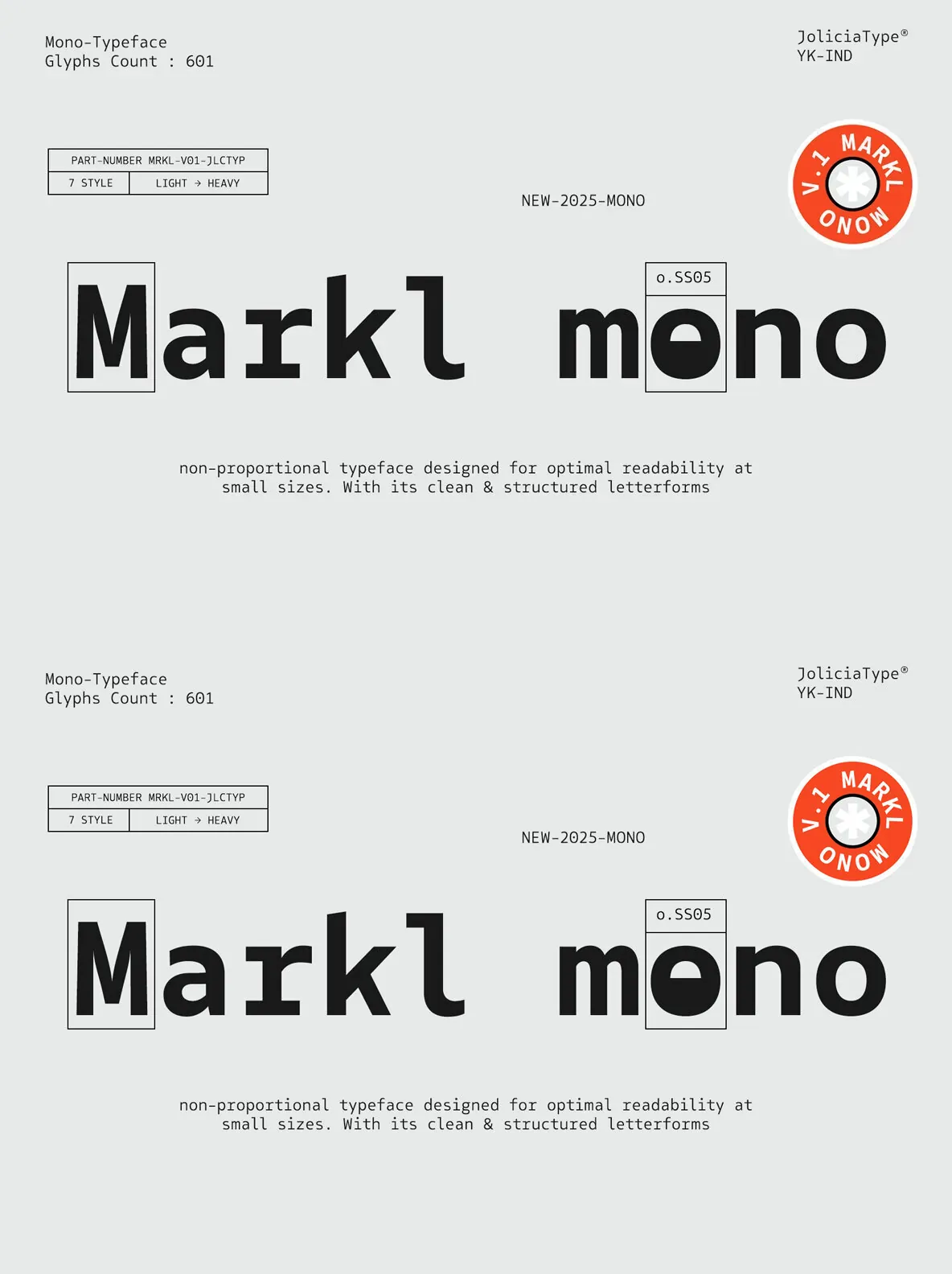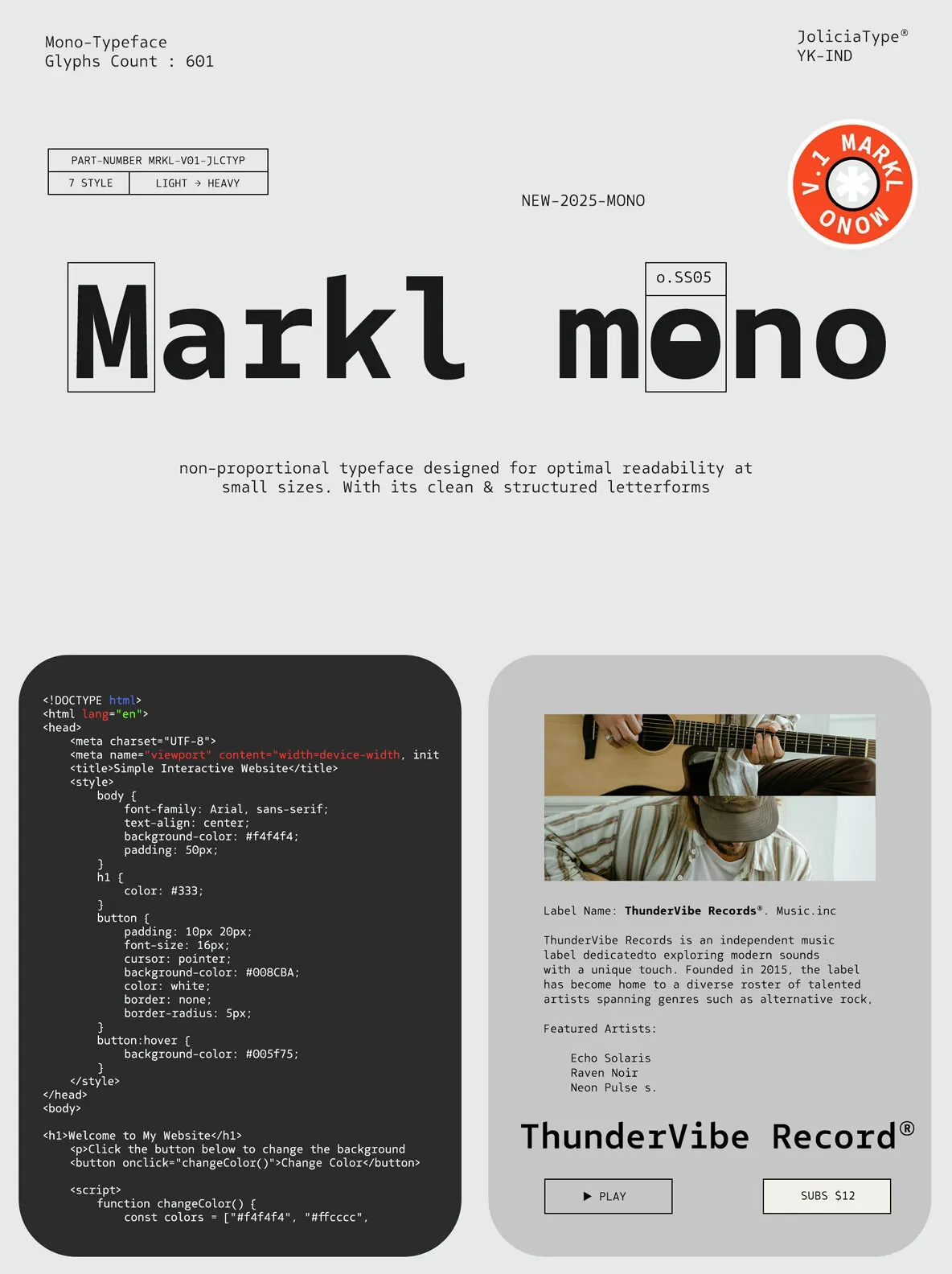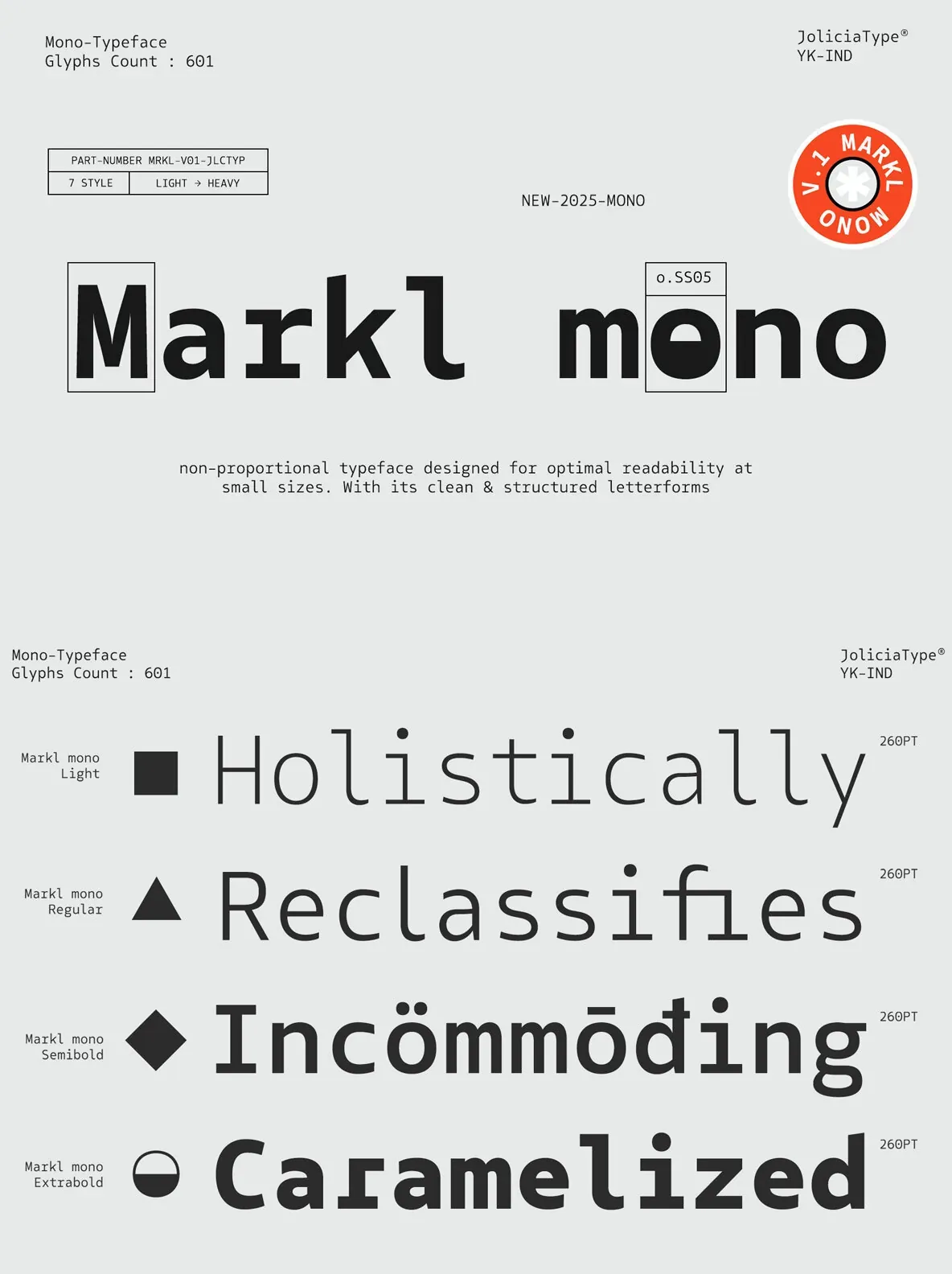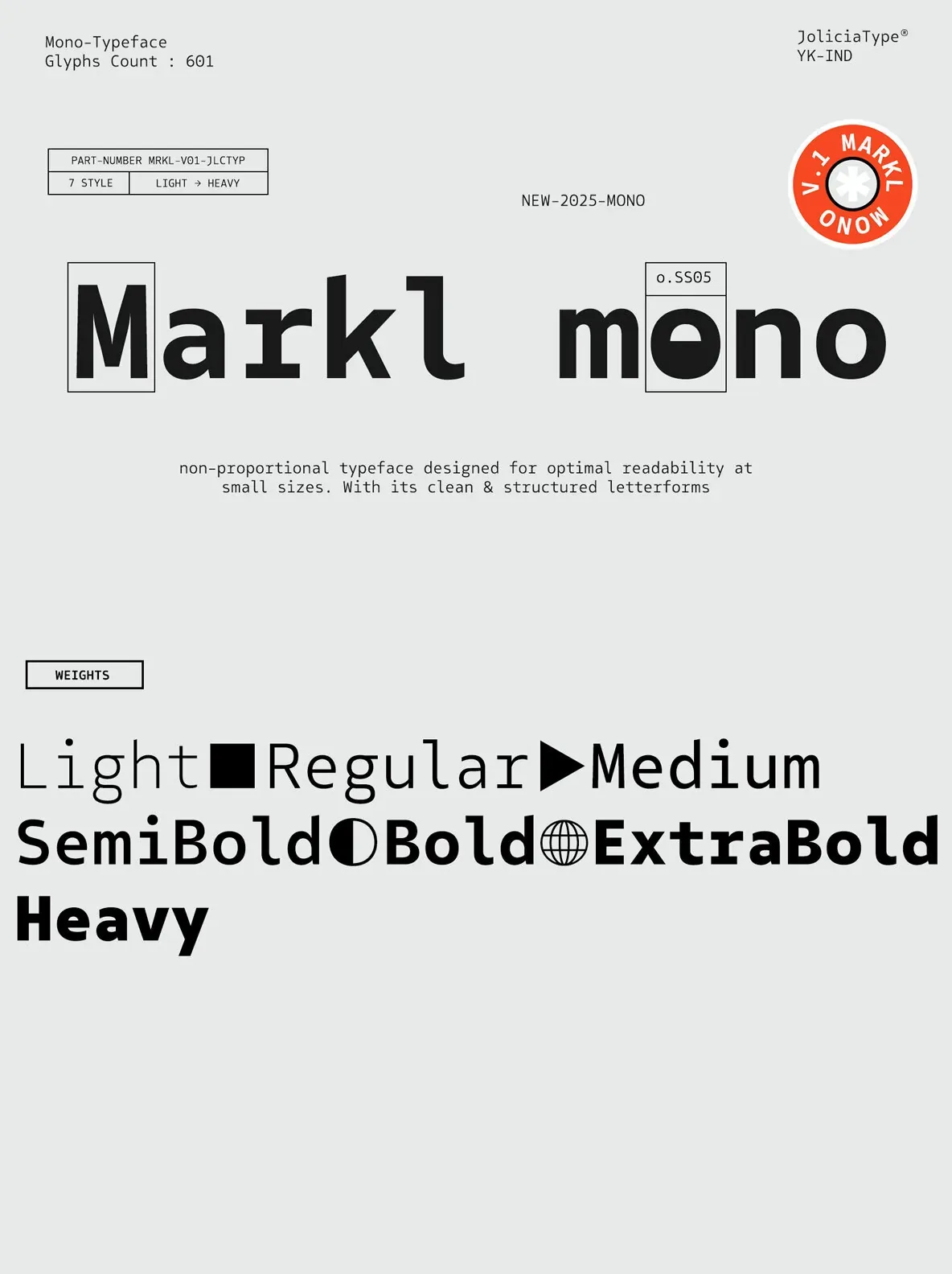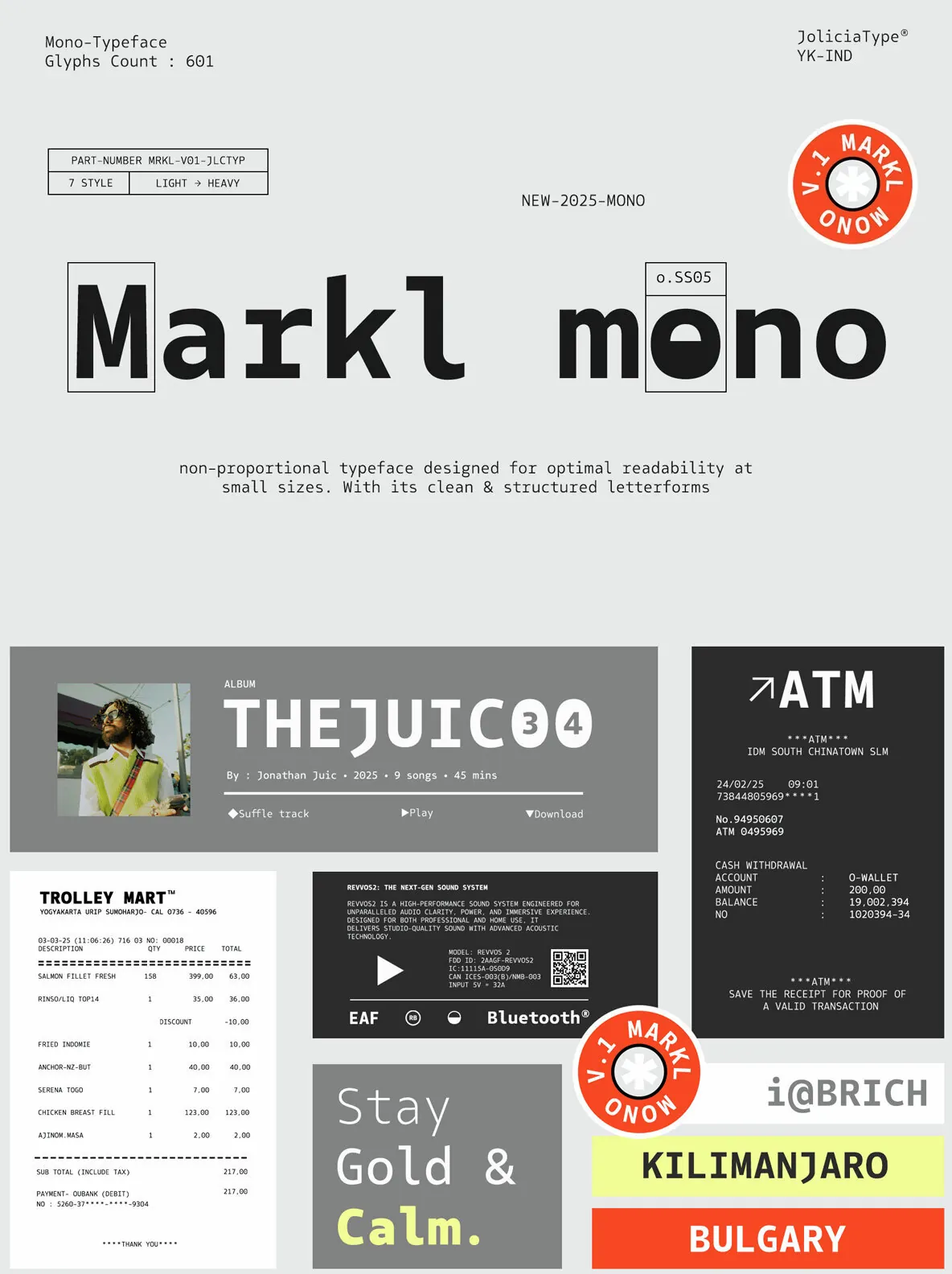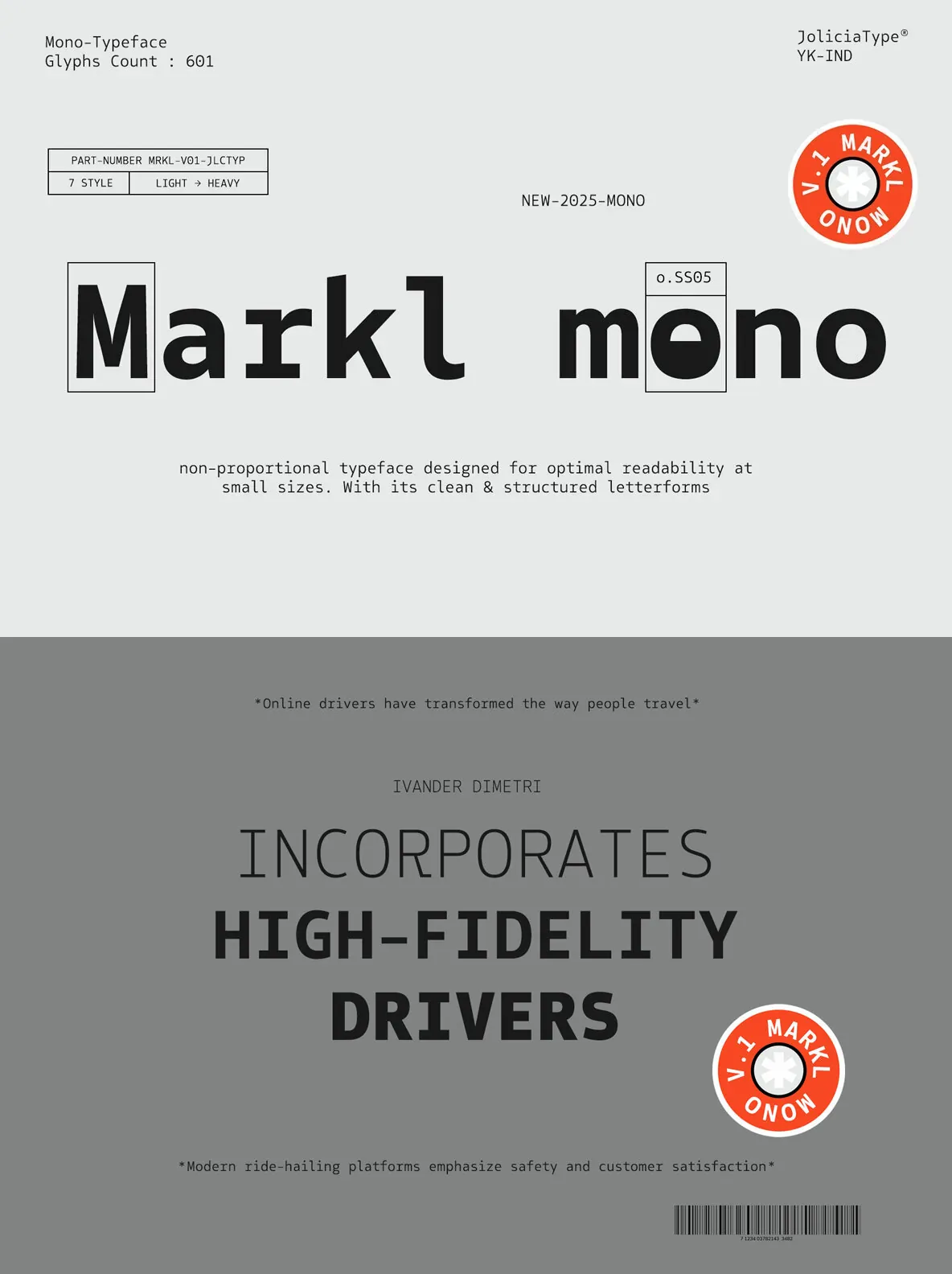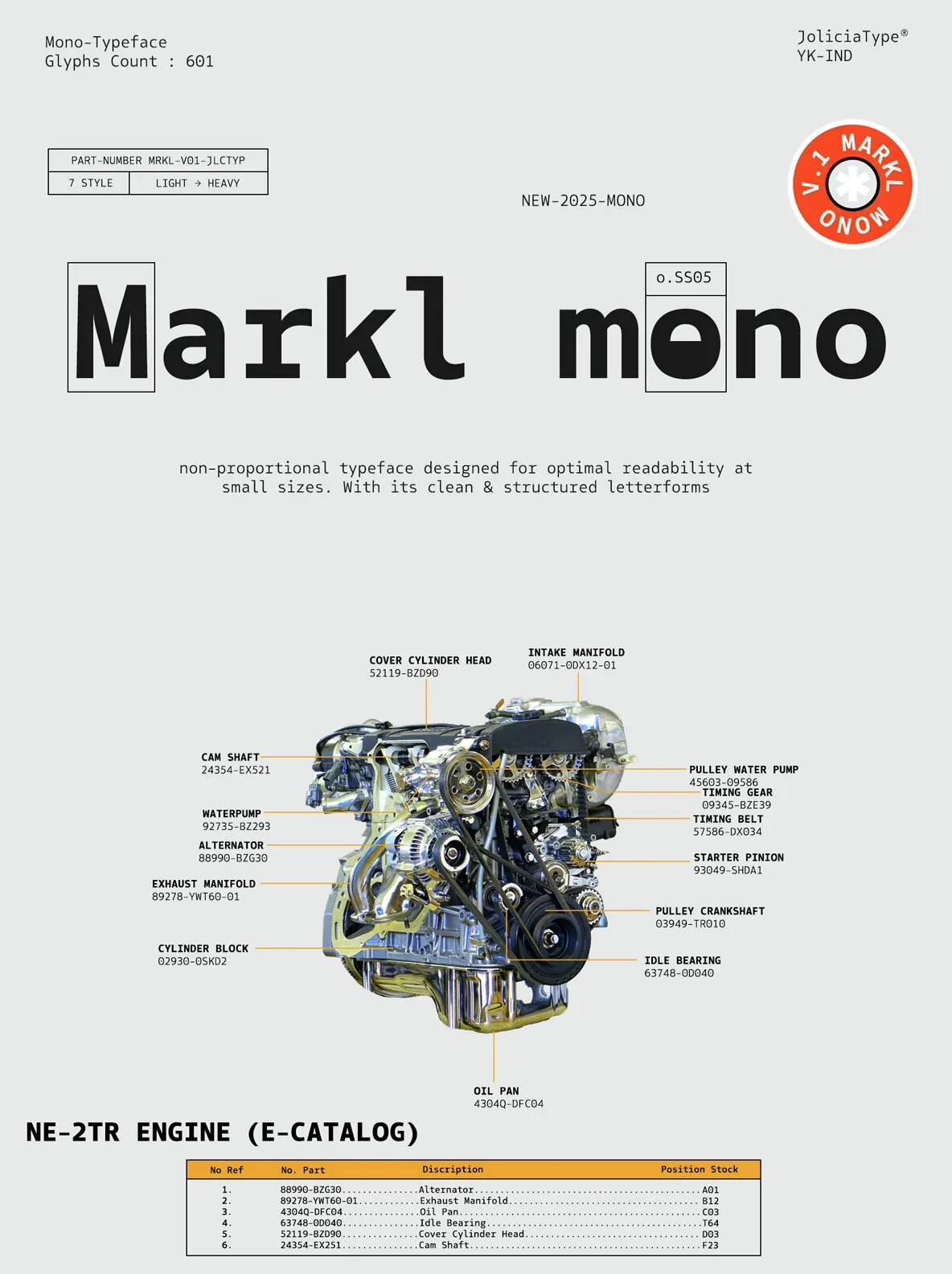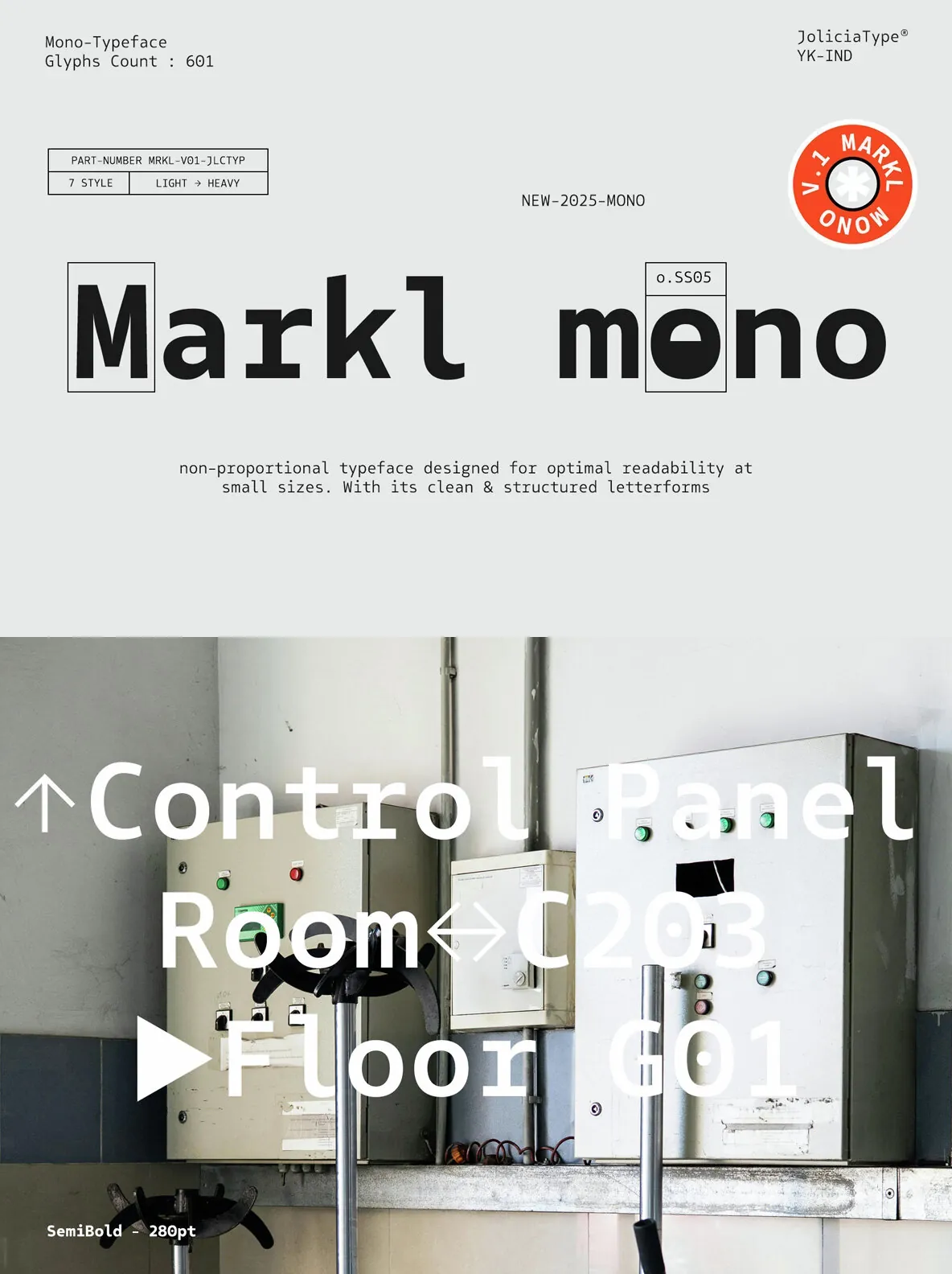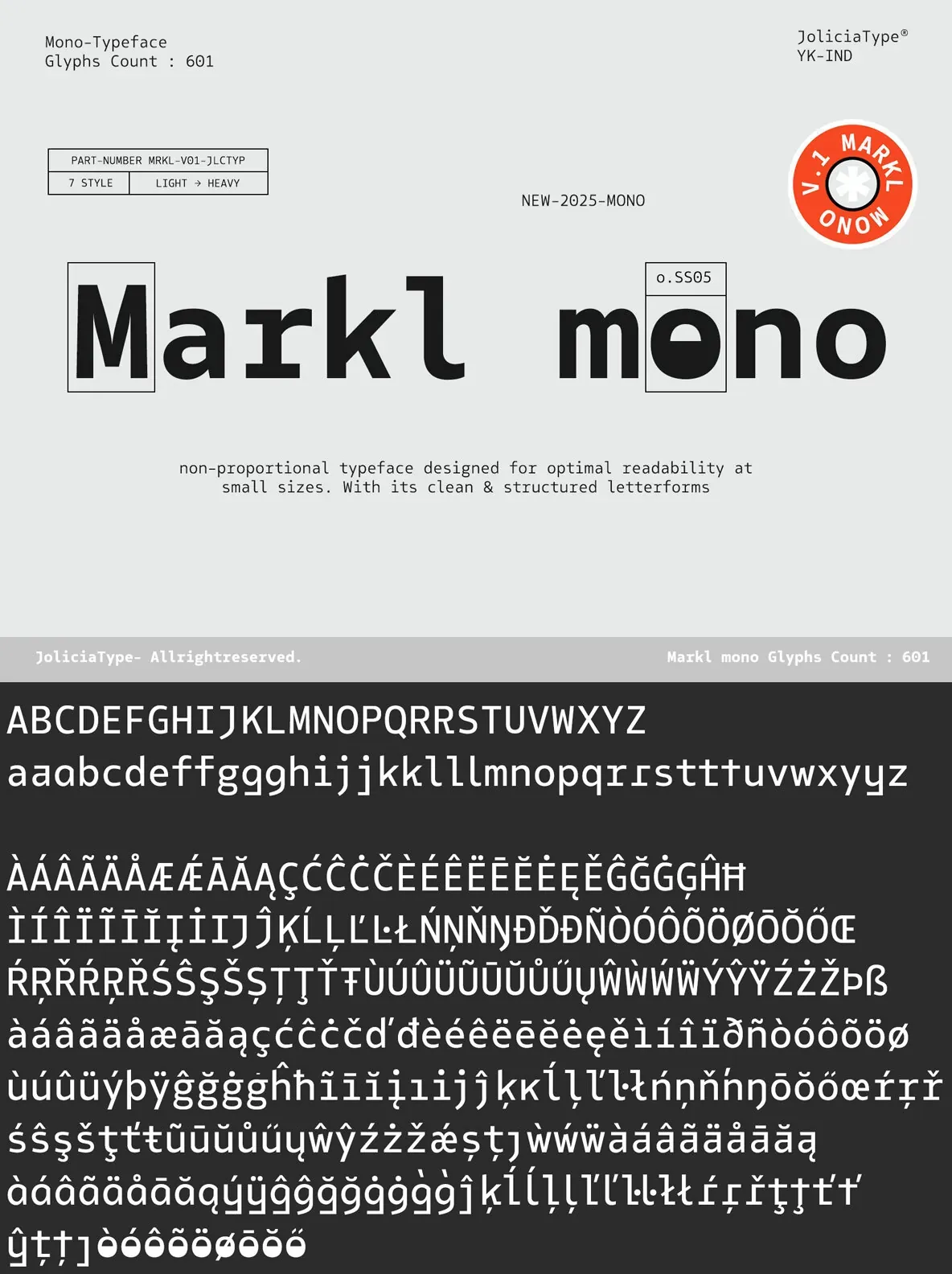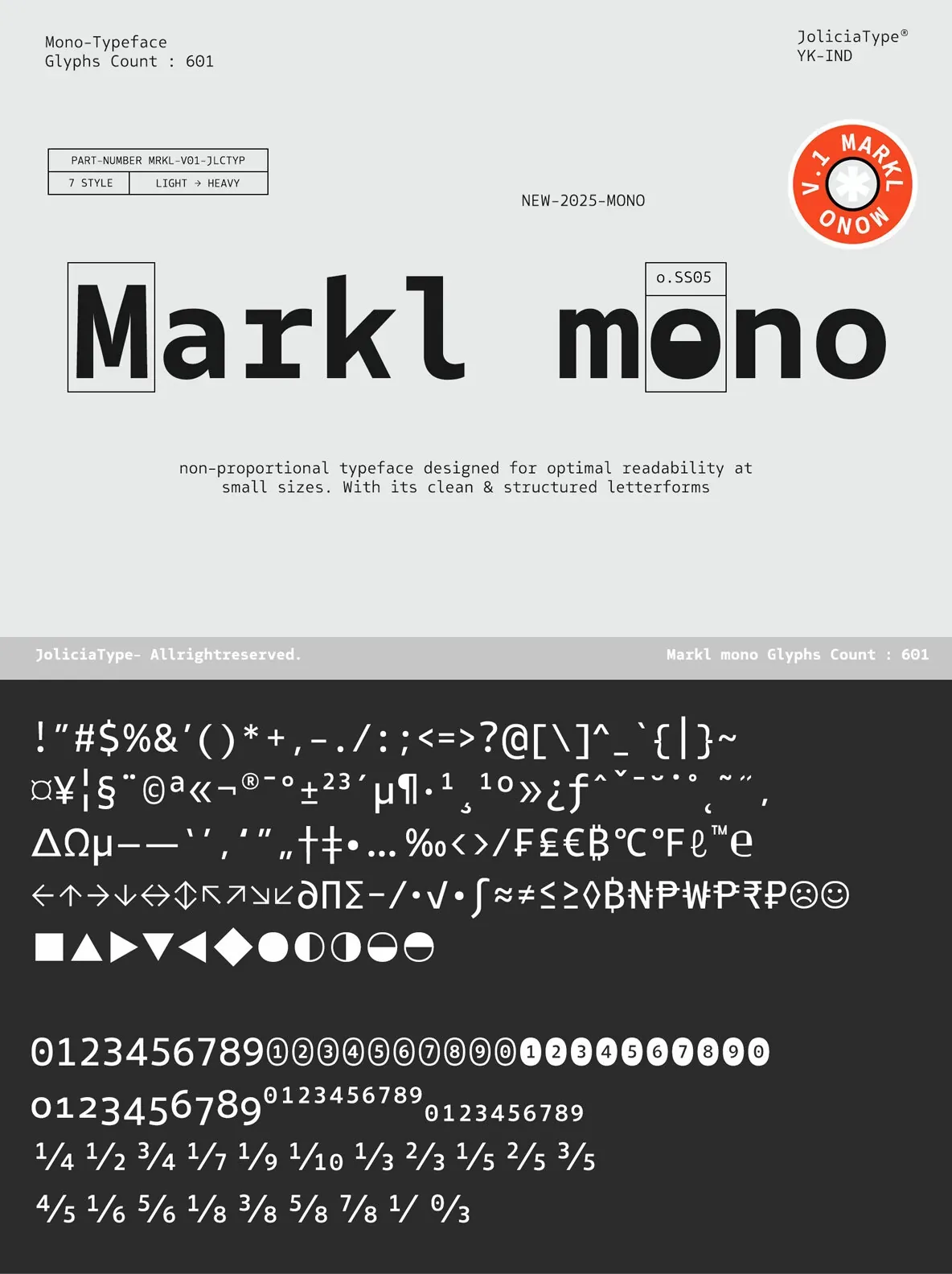
Markl Mono Font
Markl Mono: Precise Type for Technical Clarity
A non-proportional monospaced typeface that prioritizes precision and readability. Designed by Jolicia Type, it keeps spacing consistent and forms steady, so text stays clear and dependable in demanding layouts.
With 7 weights, from Light to Heavy, it maintains a clean, balanced appearance that works especially well at small sizes. The family supports technical use, coding, UI/UX, and editorial design where a neat, professional look matters.
With a total of 601 glyphs, Markl Mono includes alternate characters for R, a, f, g, j, k, l, r, t, y, o, giving you more flexibility when exploring tone and texture without losing its disciplined rhythm.